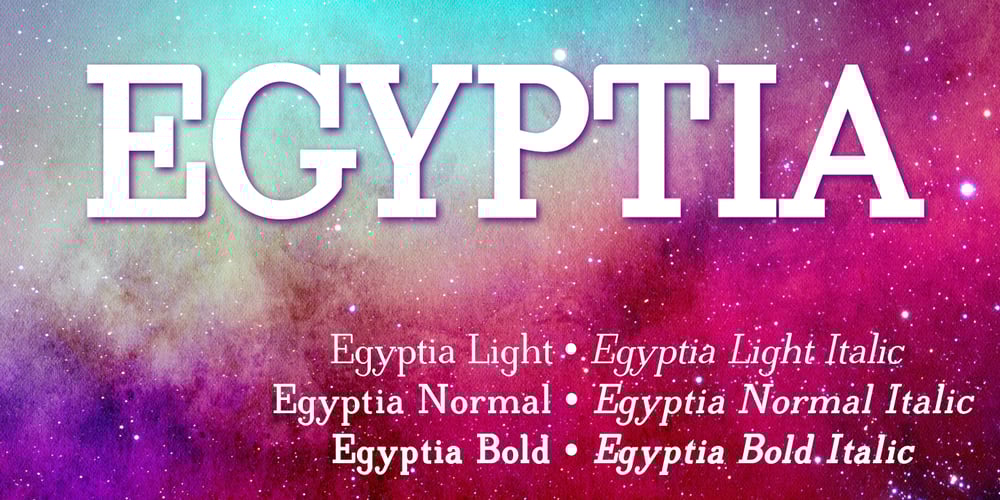
Egyptia Font Family was designed by Gert Wiescher and published by Wiescher Design. Egyptia contains 16 styles and family package options. Egyptia is a modern slab serif with square slabs. I only sell pairs, but for a fair price. Your Egyptienne type designer, Gert Wiescher